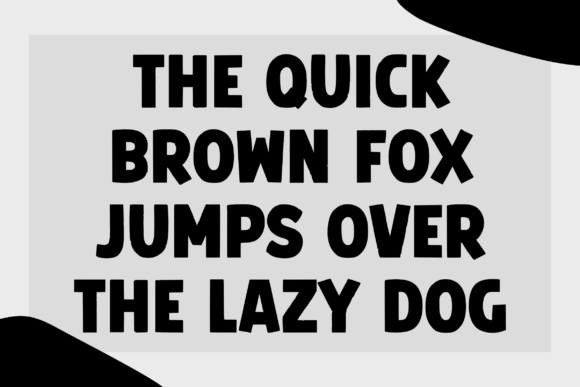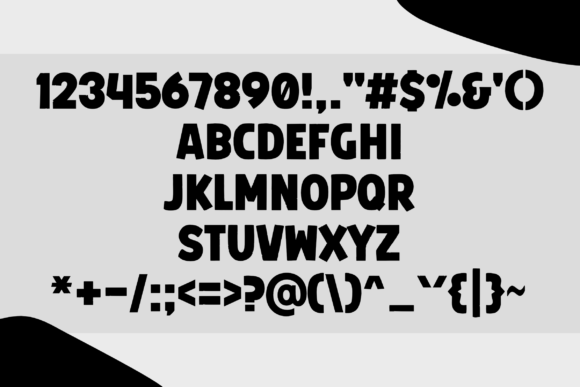
Introduction to Rustic Bold Clean Font
Do you remember that moment when you finally landed on the perfect font for your design project, and everything just clicked? It’s a feeling that’s hard to describe, but it’s the spark that ignites creativity and sets your imagination ablaze. For designers, finding that perfect font can be a game-changer, elevating a project from good to great. And that’s exactly what we’re excited to introduce you to – the Rustic Bold Clean Font, a robust and eye-catching typeface that’s sure to leave a lasting impression.
Whether you’re working on a creative project or simply looking for a design resource to breathe new life into your artwork, Rustic Bold Clean Font is the perfect choice. Its rugged charm and high-quality design make it an ideal addition to any project, from brochures to social media graphics. And the best part? It’s available for a free download, complete with a transparent background, giving you the flexibility to use it as you see fit.
So why settle for a generic font when you can make a statement with Rustic Bold Clean Font? This substantial font is not only visually striking but also packed with character, making it the perfect choice for designers who want to add a touch of personality to their work.
Key Features of Rustic Bold Clean Font
- Rustic yet modern design, perfect for a creative project that requires a balance of vintage and contemporary elements.
- High-quality font with a transparent background, ideal for designers who need a clean and versatile design resource.
- Rustic Bold Clean Font comes in two weights: Regular and Bold, offering a wide range of design possibilities.
- Designed for use in digital and print media, including logos, branding, and signage, making it an excellent choice for designers.
- Unique characteristics: the font’s rustic feel is balanced by its clean lines and modern aesthetic, making it perfect for a wide range of creative projects.
Honest Review: Rustic Bold Clean Font
I recently had the chance to work with the Rustic Bold Clean Font, and I must say it’s been a game-changer for my creative projects. ✨ The font’s unique blend of rustic and clean elements makes it perfect for a variety of designs, from modern to vintage-inspired.
The transparent background feature is another highlight of this font. It makes it easy to work with, allowing me to focus on the design rather than the background. Here are some of the key features I’ve enjoyed working with:
- High-quality design suitable for various creative projects
- Unique blend of rustic and clean elements
- Transparent background for seamless design
While I’ve been impressed with the Rustic Bold Clean Font, there are a few limitations to consider: ⚠️
- May not be suitable for all design styles or themes
- Some users may find the font too bold or overwhelming
Overall, I’m very impressed with the Rustic Bold Clean Font. It’s a valuable design resource that’s sure to elevate your creative projects. I highly recommend giving it a try!
For a transparent background, use the font on a background image or color. This will give your design a clean and modern look. Experiment with different font sizes and styles to get the most out of the Rustic Bold Clean Font.
The Rustic Bold Clean Font is perfect for use in business cards, brochures, and other marketing materials. It’s also great for use in website headers and footers. With its clean and bold design, this font is sure to make a statement in any creative project.